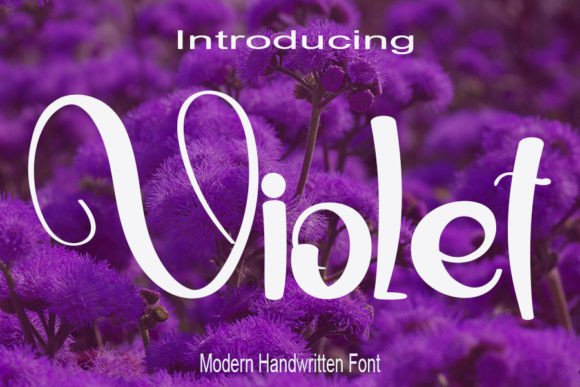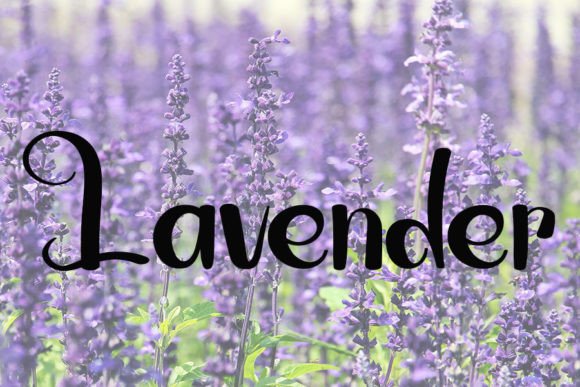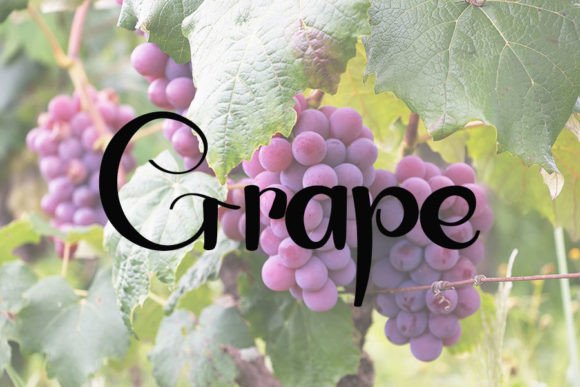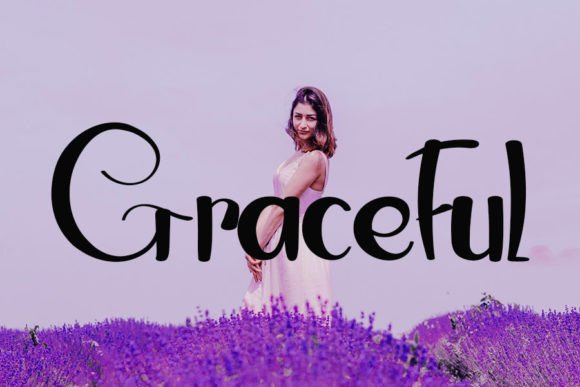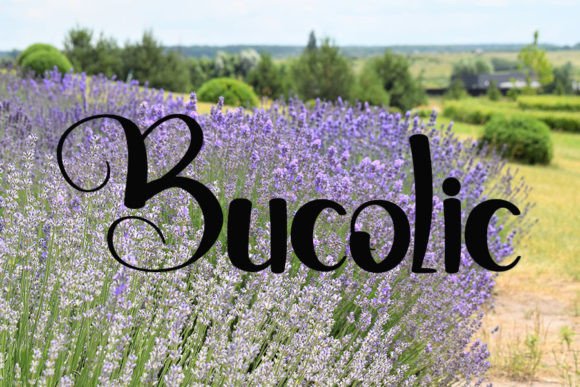
Violet Font
Violet Font : An Elegant Handwritten Font for Timeless Designs
Violet is a meticulously crafted handwritten font that exudes elegance and beauty. This versatile typeface is perfect for a wide range of creative projects, from wedding invitations to luxury branding.
Key Features of Violet Font
• Elegant Handwritten Style: Adds a touch of sophistication to your designs
• Timeless Appeal: Transcends design trends for long-lasting relevance
• Versatile Application: Suitable for print and digital media
Perfect for Multiple Design Projects
Violet’s adaptability makes it an excellent choice for:
Enhancing Your Creative Vision
With Violet, you can infuse your designs with a sense of timeless beauty. Its carefully crafted characters radiate sophistication, allowing you to create designs that resonate with refinement and elegance.
Print and Digital Versatility
Whether used in traditional print media or digital platforms, Violet maintains its charm and readability. From high-end fashion magazines to modern websites, this font brings an air of elegance to every setting.
Customization Options
Violet offers a range of customization options, allowing you to tailor your text to match your creative vision perfectly. This flexibility empowers you to create designs that are as unique as your artistic imagination.
Violet is more than just a font; it’s a design asset that elevates your creative projects to new heights of elegance and timelessness. Its neat and beautiful handwritten style inspires stunning and unforgettable designs that leave a lasting impression. By incorporating Violet into your designs, you can create visually appealing and sophisticated content that engages your audience. Whether you’re a professional designer or someone looking to add elegance to personal projects, Violet offers the perfect blend of beauty and functionality. Consider pairing Violet with clean sans-serif fonts for contrast or complementing it with other script fonts for a dynamic typographic palette. This versatility allows you to create designs that are both elegant and harmonious across various mediums and industries. Embrace the timeless charm of Violet today and watch as it transforms your creative ideas into captivating and sophisticated designs!